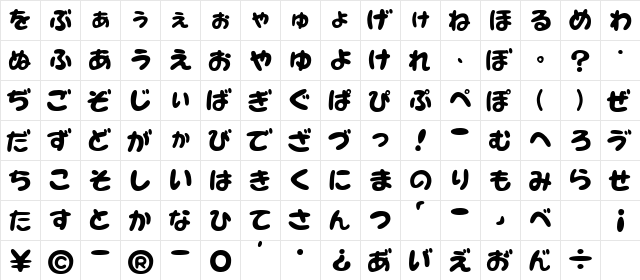
NeponHR Regular
Design Context for NeponHR Typeface
NeponHR takes a measured approach to typography — its balanced proportions and neutral character make it a reliable workhorse for both digital and print work.